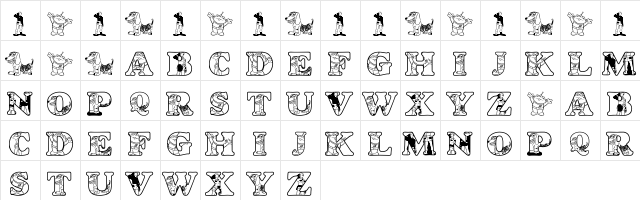
LMS Woody's Roundup Regular Free Font
LMS Woody's Roundup Regular
Design Context for LMS Woody's Roundup
LMS Woody's Roundup echoes the hand-painted signage and woodblock typography of the American frontier, with a warm, rugged personality.
A natural fit for craft spirits, ranch branding, rodeo events, and Americana-inspired design work.
Font Pairing: Combine LMS Woody's Roundup with a simple slab or neutral sans - period-accurate companions reinforce the vintage feel without competing for attention.
Pro Tip: Use LMS Woody's Roundup for short, impactful bursts of text - it shines in poster headlines and product names rather than extended copy.